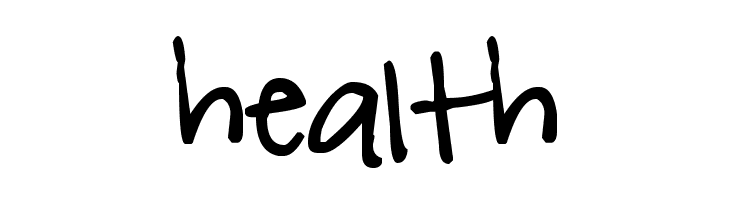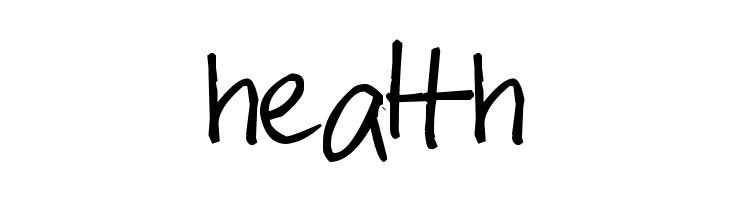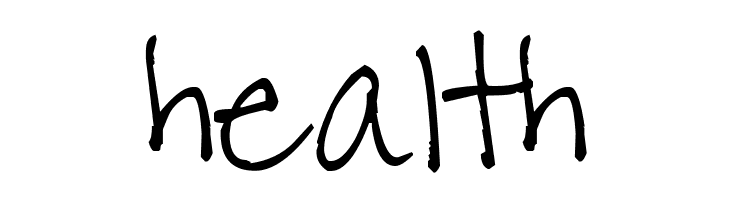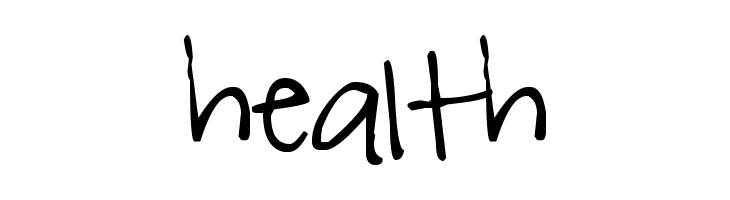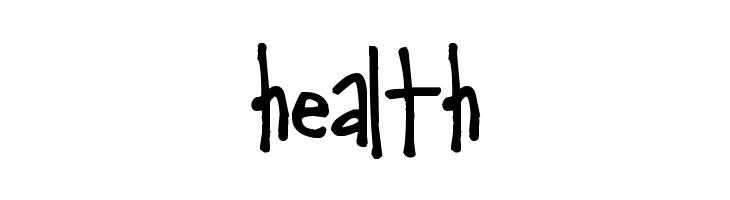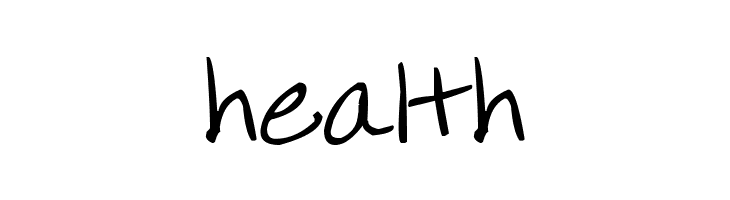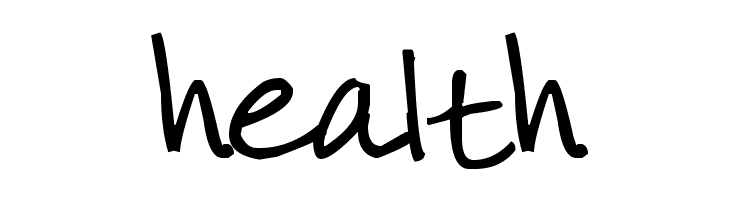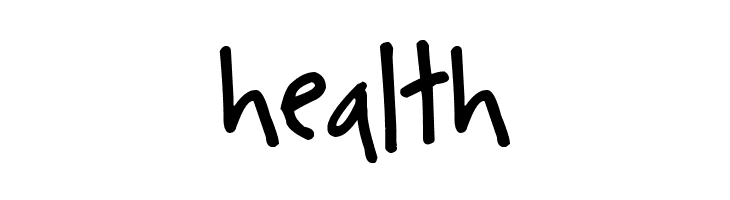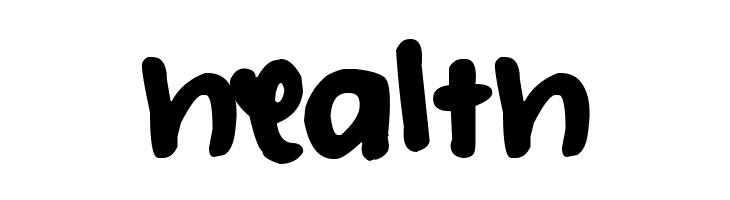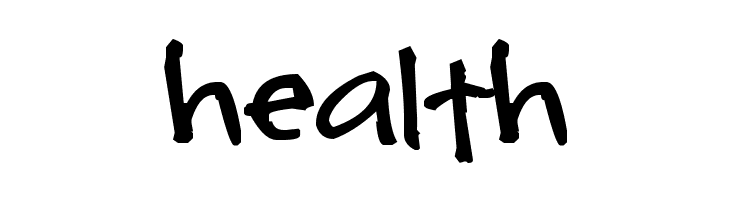
• Pea Kari
A playful, casual handwritten font with irregular strokes and a lively feel.
• Pea Karynsig
A playful, casual handwritten font with bold, uneven strokes.
• Pea Kate
A playful, informal handwritten font with smooth, fluid strokes.
• Pea Kathy
A playful, handwritten-style font with smooth, fluid strokes and a casual appearance.
• Pea Katie
A playful, casual handwritten font with a natural flow and informal touch.
• Pea Katie Shea
A bold, playful handwritten font with rounded strokes and a casual vibe.
• Pea Kelly
A casual, playful handwritten font with dynamic strokes.
• Pea Kelly Thin
A playful, handwritten font with a casual and informal style.
• Pea Kim
A playful, casual handwritten font with uneven strokes and a lively feel.
• Pea Kristin
A playful, casual handwritten font with bold, irregular strokes.